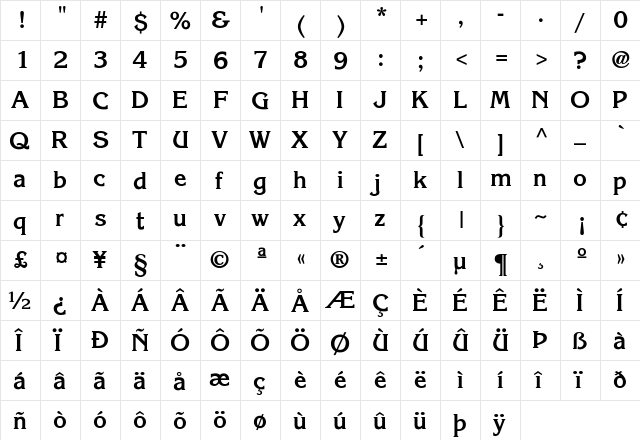
Korinna-Bold Regular Font Preview
Korinna-Bold Regular
Design Context for Korinna-Bold Typeface
Korinna-Bold offers clean, dependable letterforms without strong stylistic allegiance, making it a practical choice for designers who need flexibility. Its bold stroke weight gives it real presence on the page.